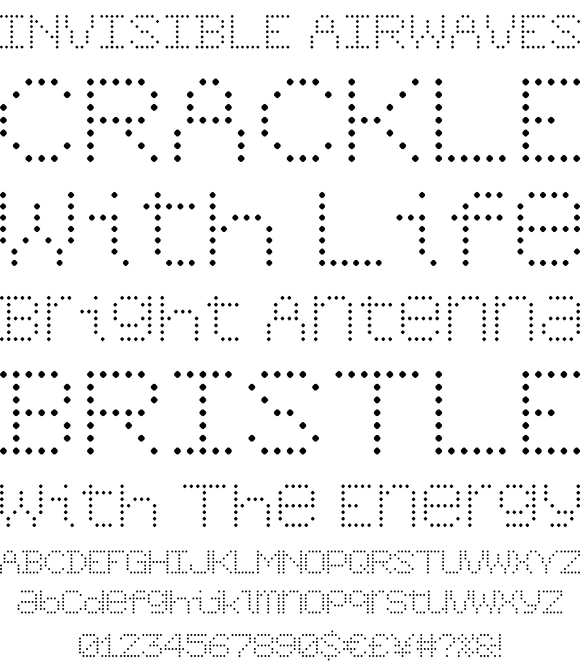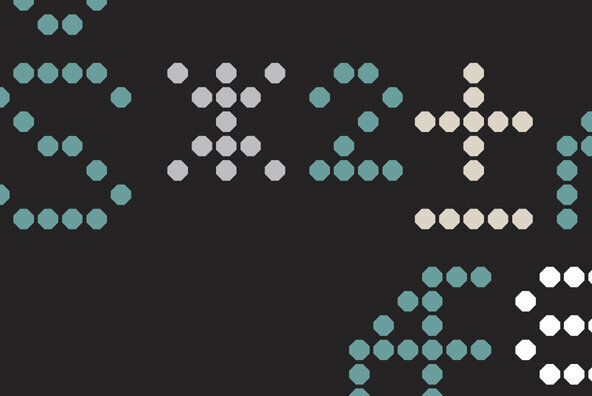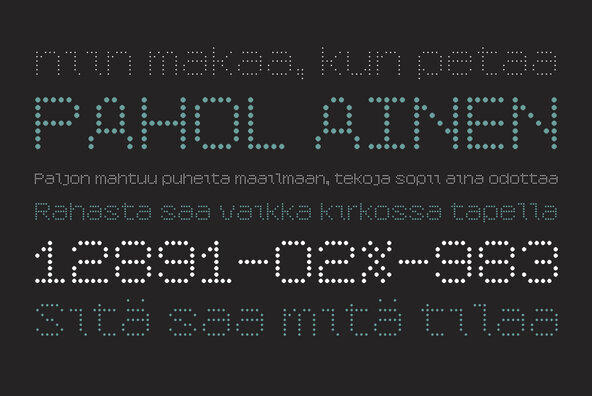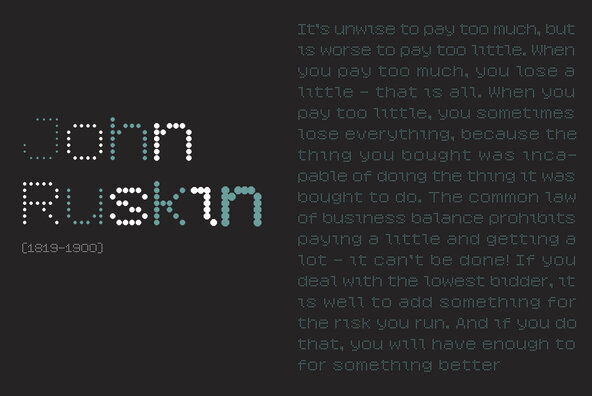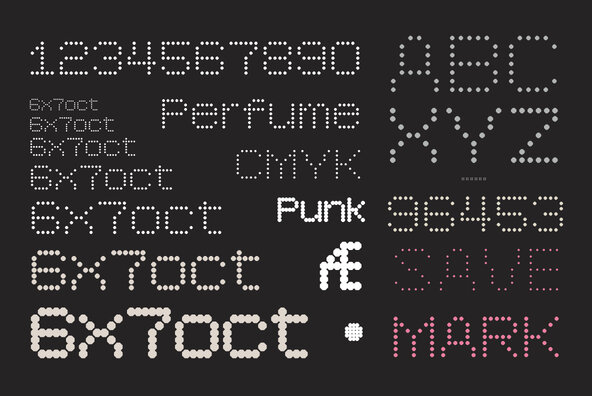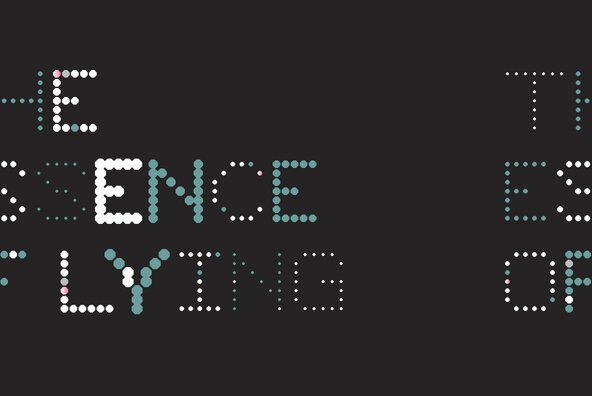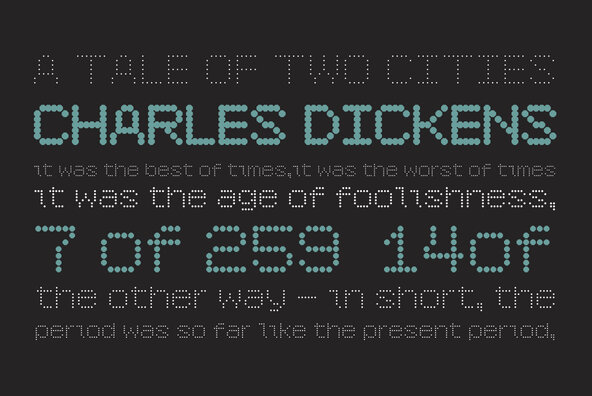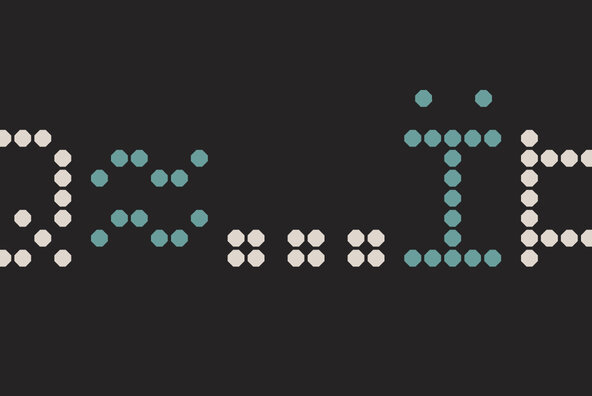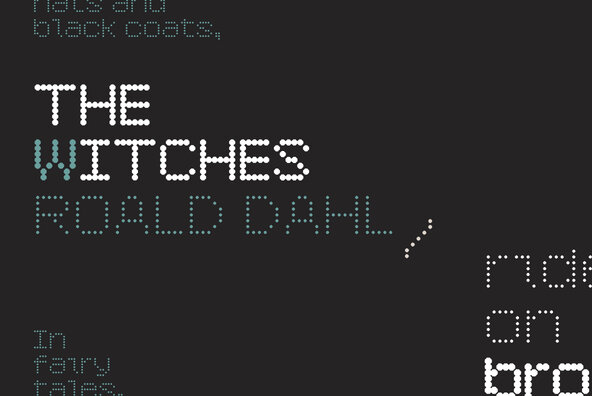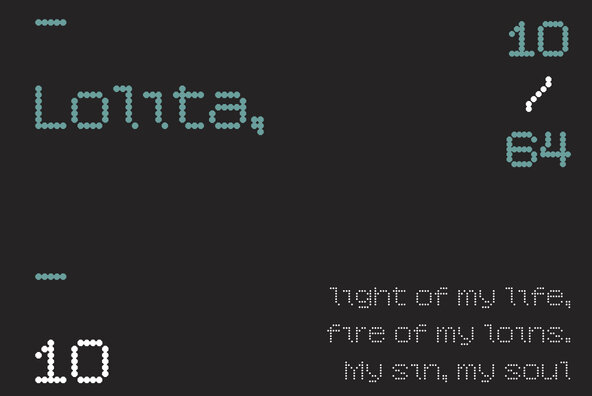
YWFT 6x7oct
Foundry: YouWorkForThem
October? No...it's all about octagons. That's right, YWFT 6x7oct was painstakingly created from nothing but octagonal shapes. We used different influences such as punch cards and other electronic devices that use systematical circles for readout, which makes for a machine-like symmetry that is as beautiful as it is functional. YWFT 6x7oct has been used in advertisements by the popular hat store Lidz and for VH1 brand spots. Designed exclusively by Michael Cina and YouWorkForThem.